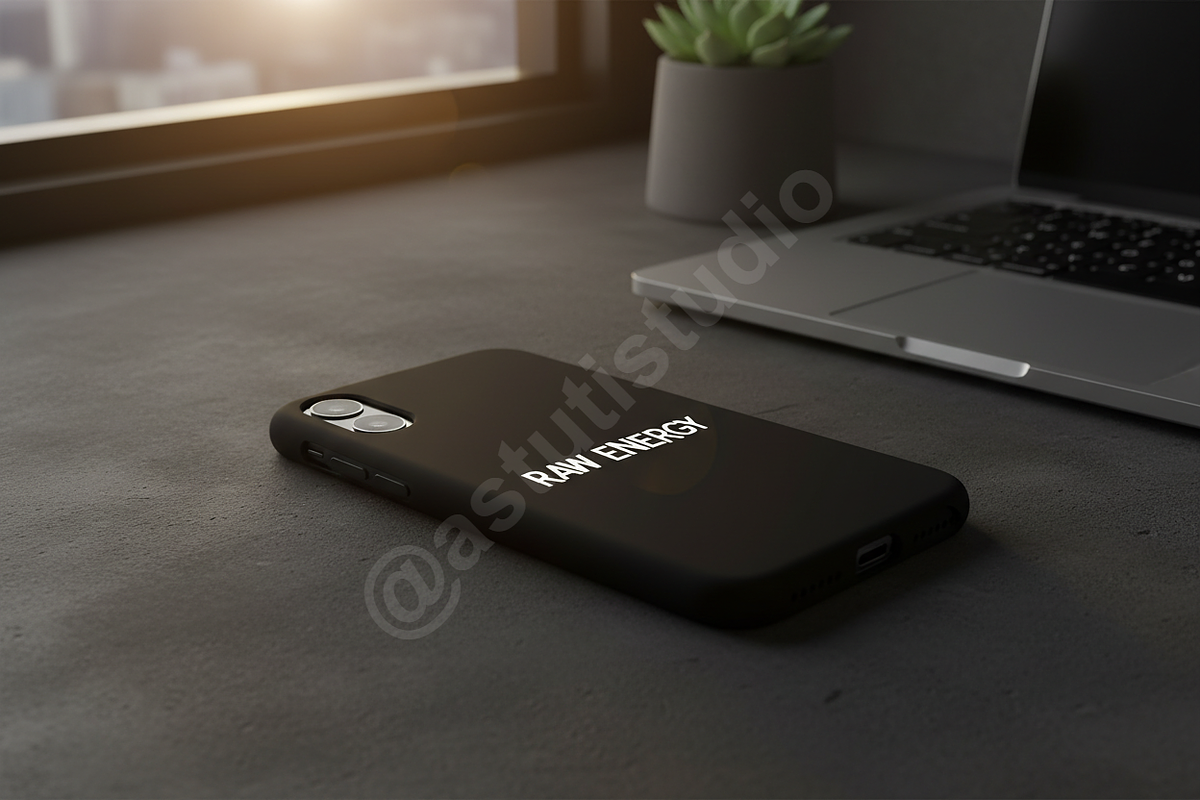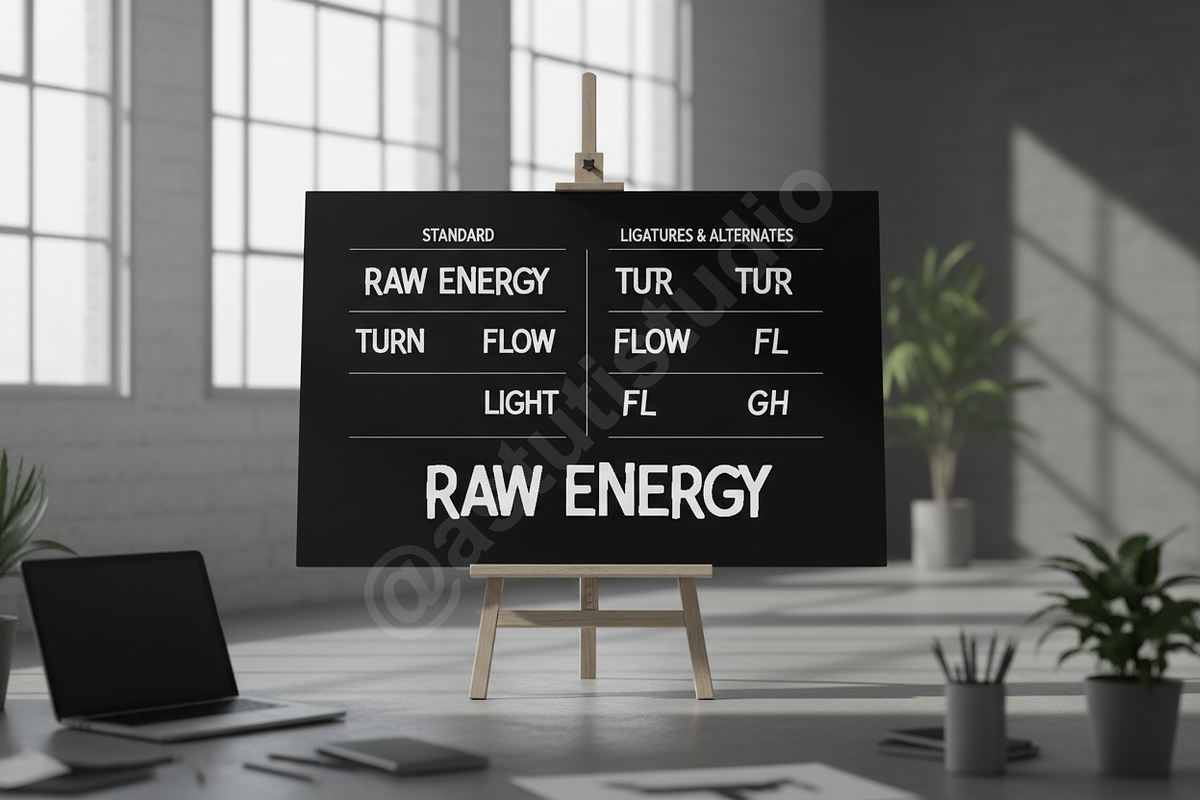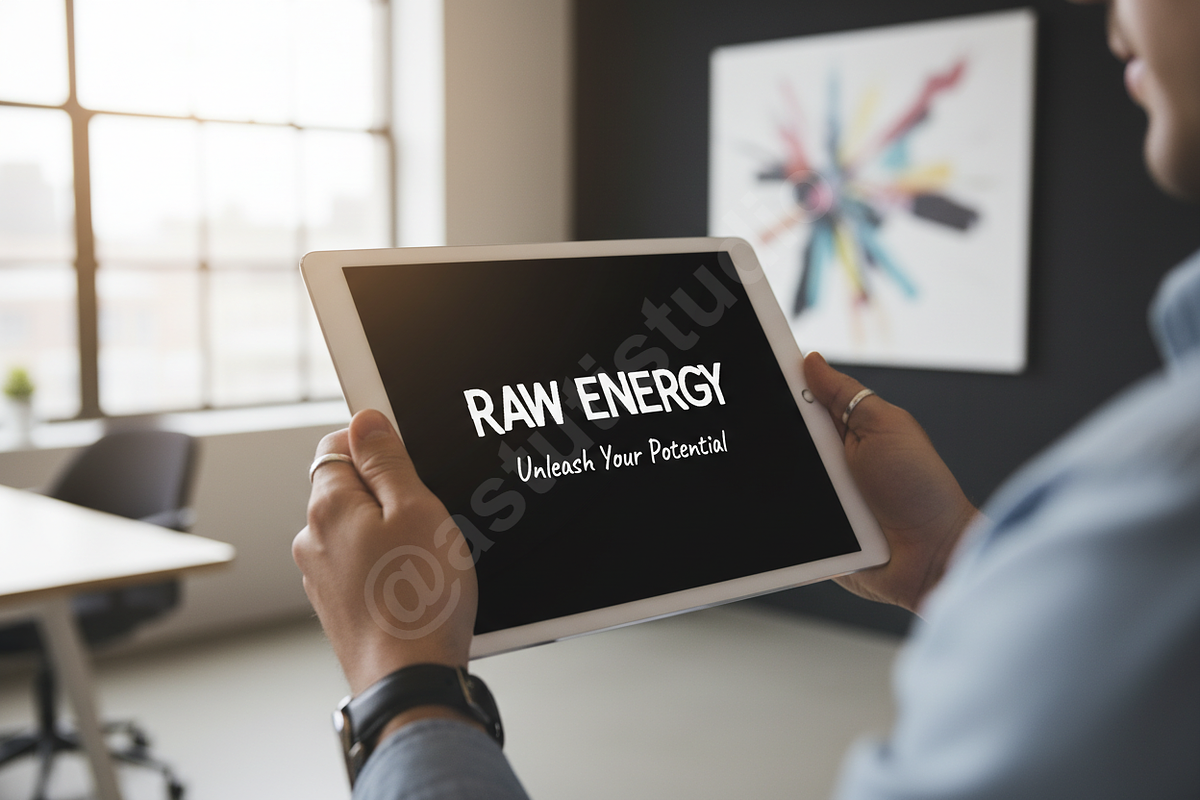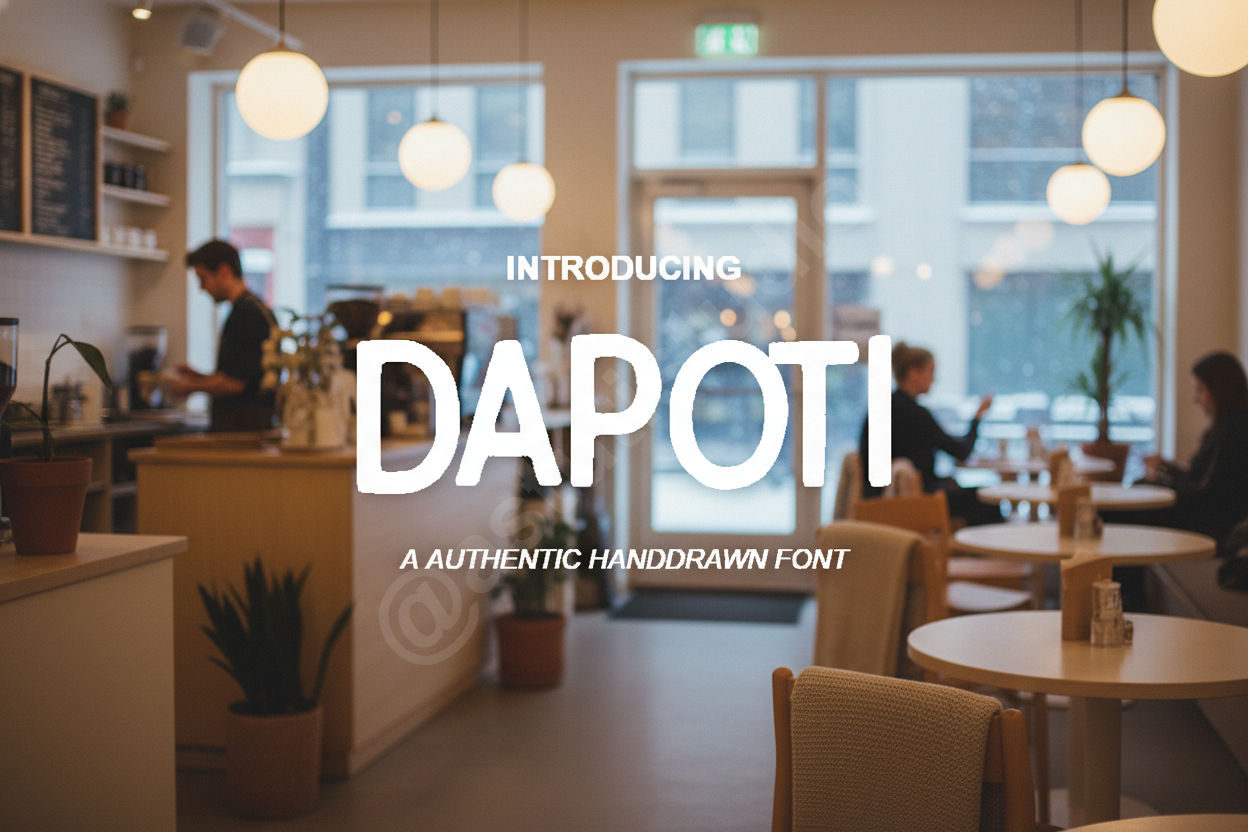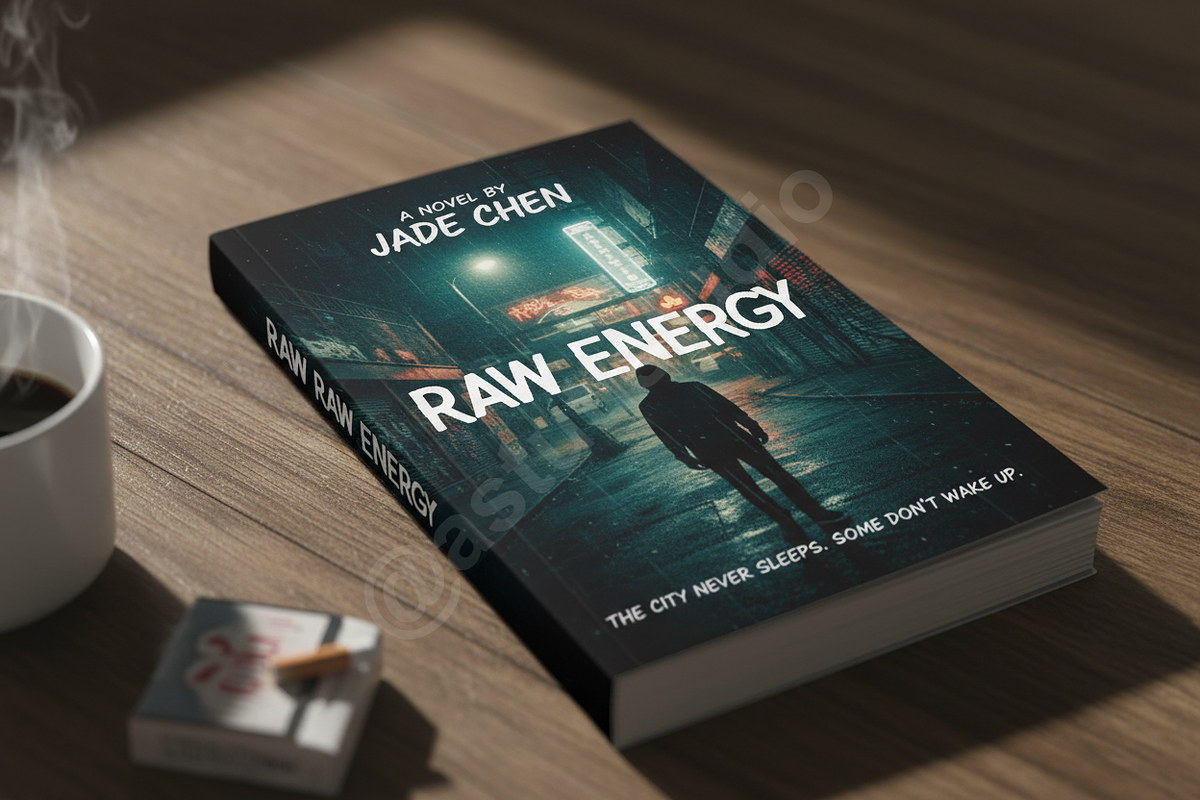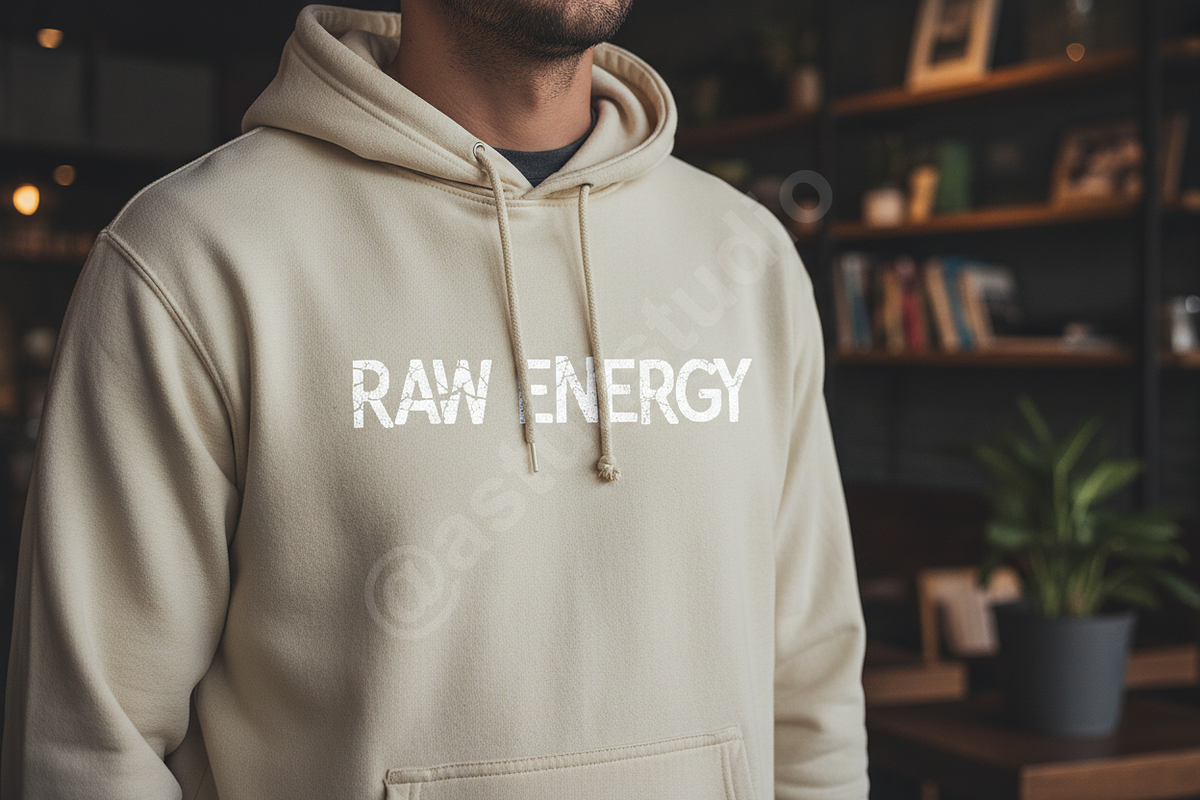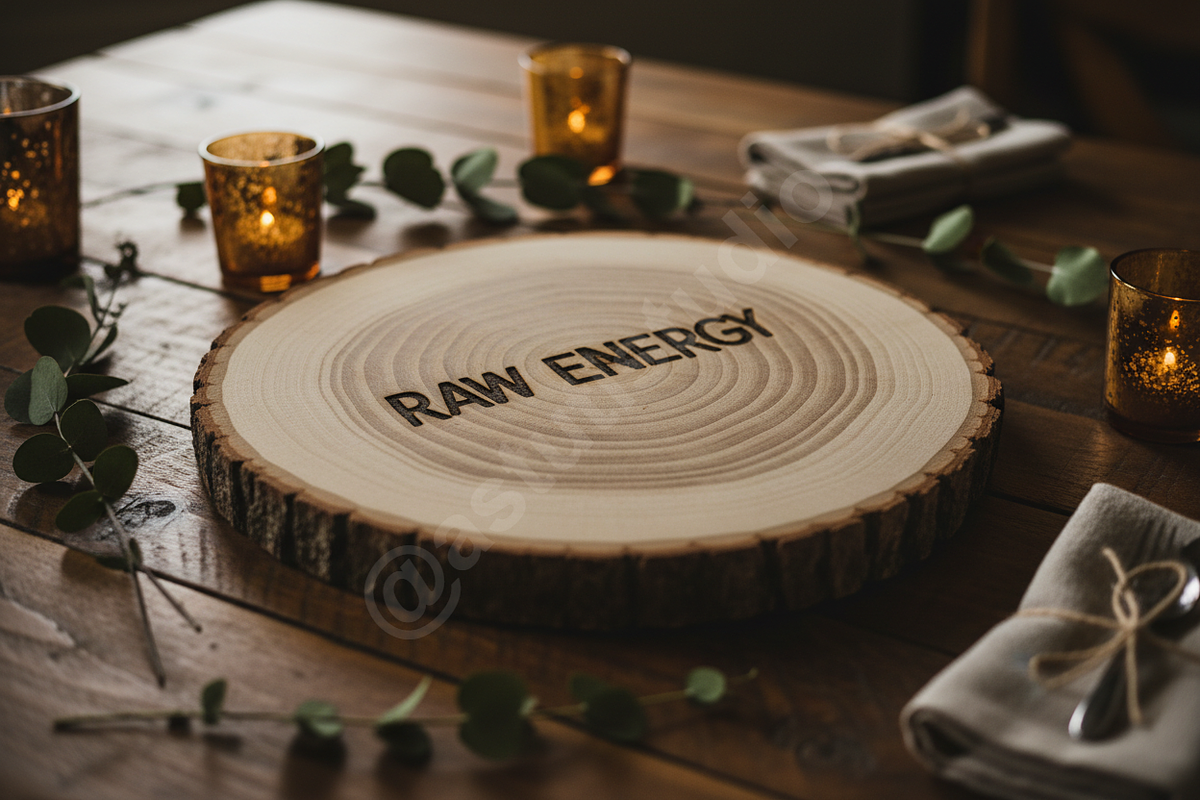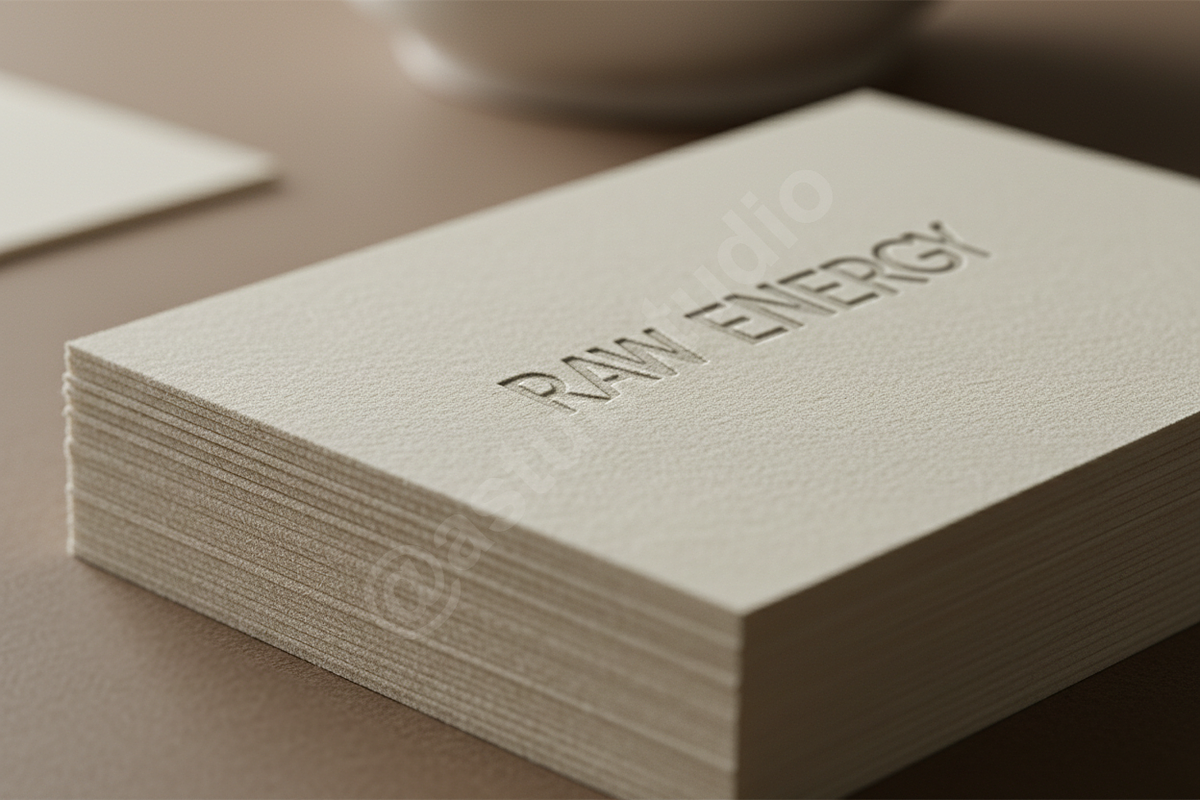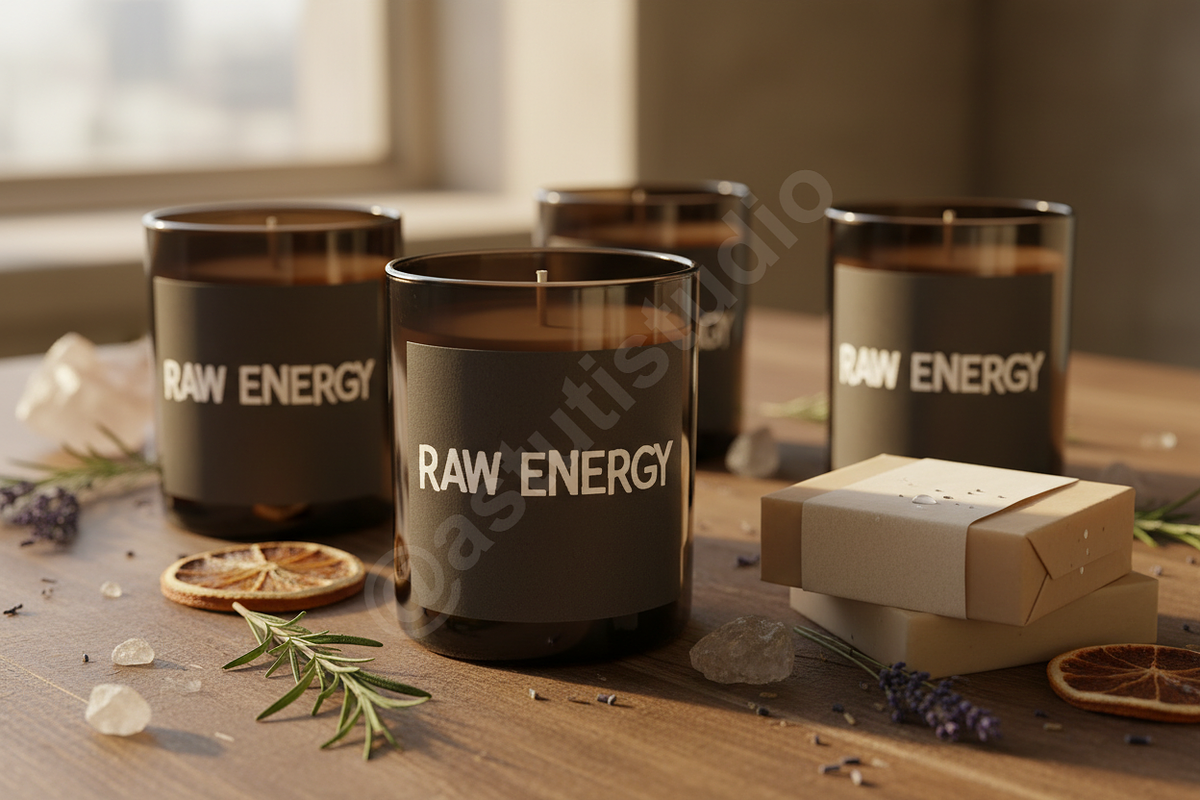
Dapoti Typeface – Elegant Serif Font
### Introduction Dapoti is a typeface meticulously crafted to exude sophistication and timeless elegance. Designed for the discerning creator, this font embodies a refined aesthetic, making it the quintessential choice for luxury branding, captivating editorial layouts, and impactful social media presence. Elevate your designs with Dapoti's unparalleled grace and commanding presence, ensuring your message is conveyed with unparalleled style and authority.
### Features
- Elegant & Modern Serif Design: A harmonious blend of classic allure and contemporary precision, ensuring a luxurious feel for any project.
- Extensive Ligatures & Alternates: Unlock creative typographic possibilities with a rich set of OpenType features designed to enhance visual appeal.
- Multilingual Support: Comprehensive character set providing broad language support for global projects.
- Exceptional Legibility: Meticulously designed for clarity and readability across various scales, from headlines to body text.
- Optimized Kerning & Spacing: Professionally adjusted letterforms and spacing for a polished, seamless, and high-end finish.